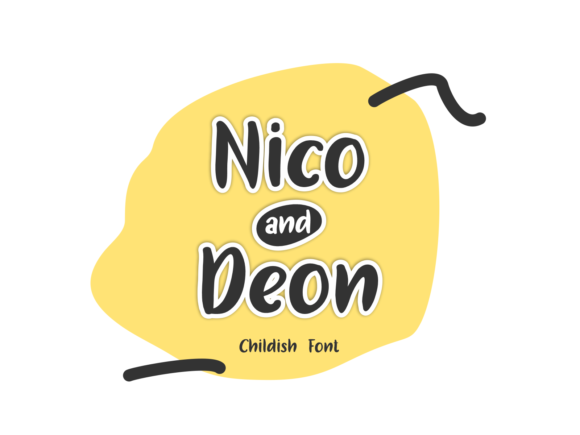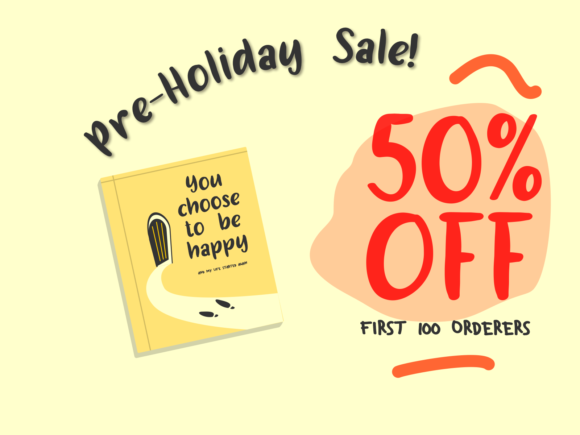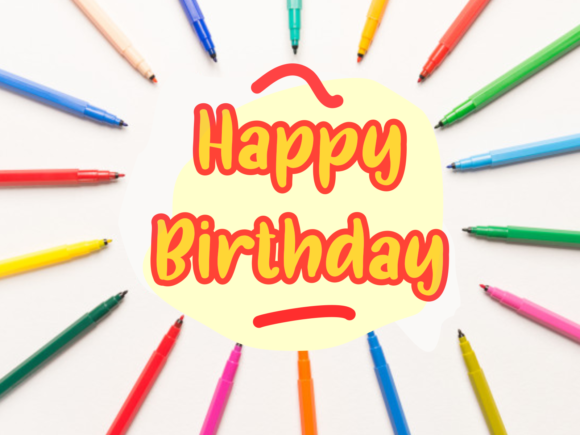
About Nico and Deon Font
Nico and Deon is a cute and childish handwritten font, carefully crafted to become a true favorite. Its casual charm makes it appear natural, readable and versatile.
It will look amazing in any context, whether used in a busy background or as a standalone title!